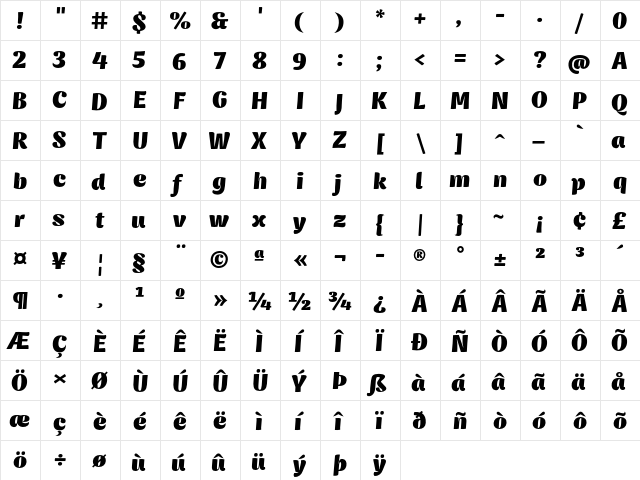
Genica One Regular
| Designer | Natanael Gama |
Design Context for Genica One Typeface
Genica One is a composed and adaptable typeface that performs quietly and consistently across a wide range of design contexts.